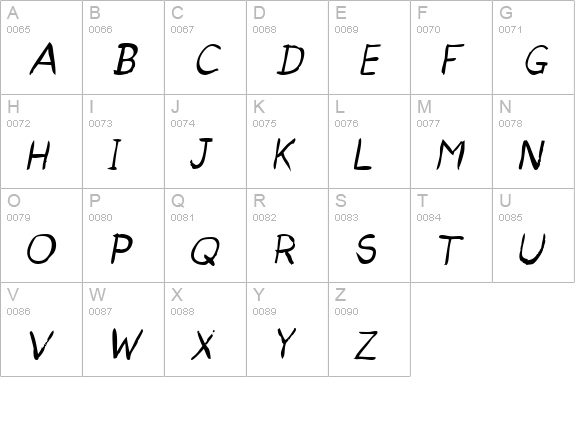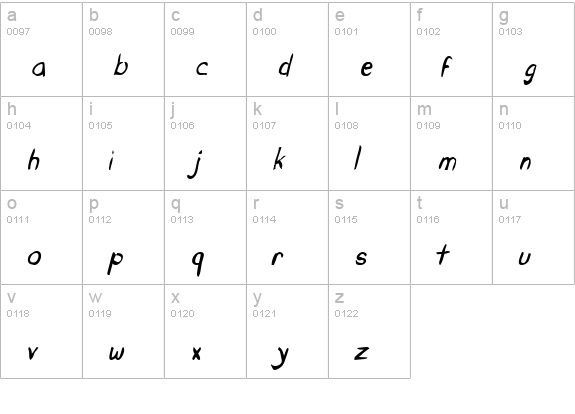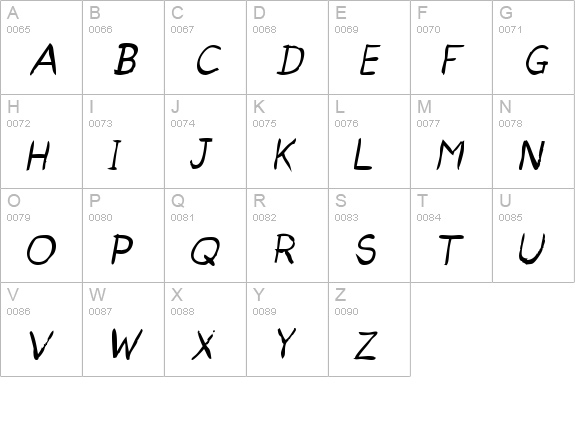
Untidy Italic Skrawl Font Details
Untidy Italic Skrawl is a distinctive, italic variant in the Untidy typeface family \xE2\x80\x94 well suited to design and typography projects.
Introducing Untidy Italic Skrawl font, a unique and imaginative typeface that effortlessly captures the essence of artistic chaos. This font is specifically designed to add an untidy and messy touch to your creative projects, allowing you to break free from the conventional norms of typography. Untidy Italic Skrawl font showcases a playful and carefree style, perfect for adding a touch of whimsy to your designs. Its irregular and uneven strokes create a sense of movement, as if the letters are dancing across the page. This font truly embodies the spirit of creativity, embracing imperfections and celebrating the beauty in chaos. Whether you're designing posters, logos, or invitations, Untidy Italic Skrawl font will add an element of surprise and intrigue to your work. Its captivating and eye-catching appearance will instantly draw attention, making your designs stand out from the crowd. The best part? Untidy Italic Skrawl font is freely available to download at FontsMarket.com. This means that you can unleash your creativity without any restrictions or limitations. With just a few clicks, you can bring this unique font into your design arsenal and set your imagination free. Don't be afraid to embrace the untidy and let your creativity run wild with Untidy Italic Skrawl font. Its free availability ensures that anyone can access this font and add a touch of artistic flair to their projects. So why wait? Download Untidy Italic Skrawl font today and embark on a journey of creative freedom like never before.